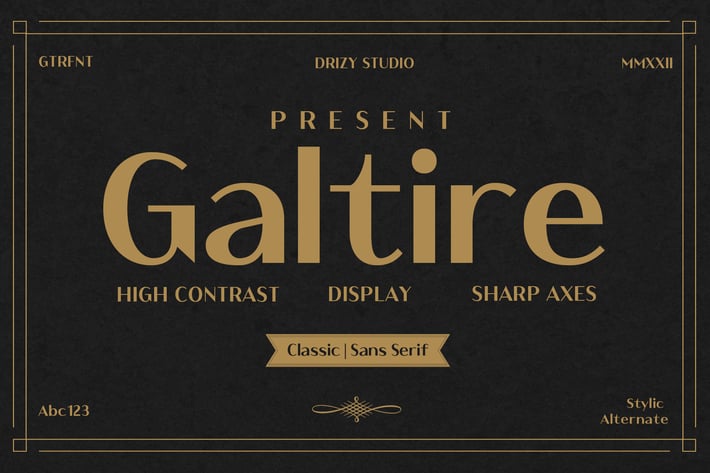
Galtire - Classic Sans Serif Font
Galtire is a Classic Sans Serif Font from Drizy studio. Offering all the basic styles you will need especially Classic theme project.
Galtire Features:
Multilinguals
Alternates
Ligatures